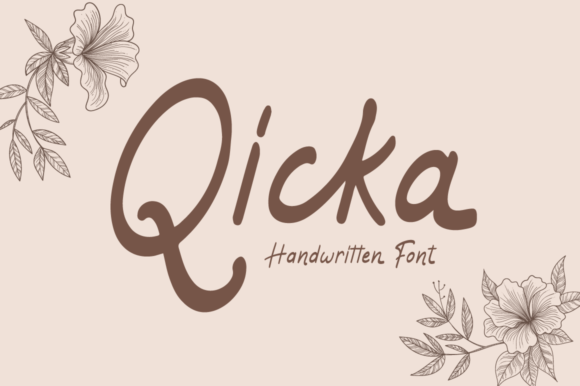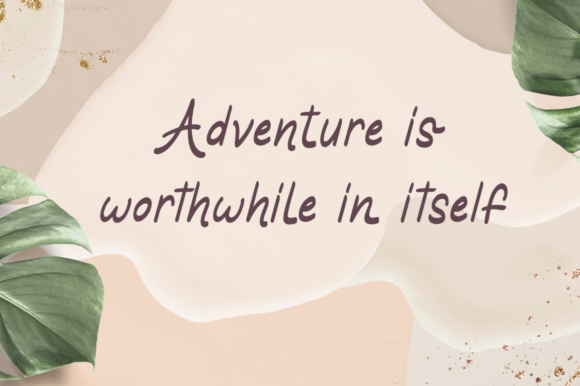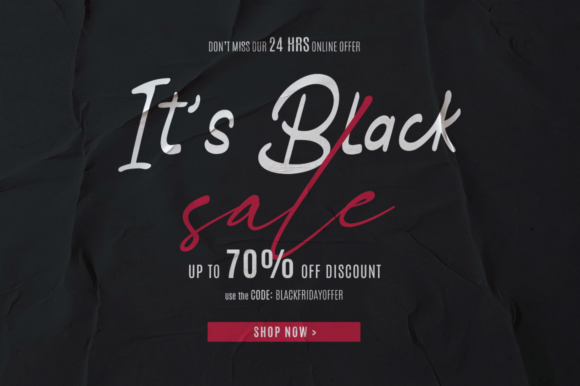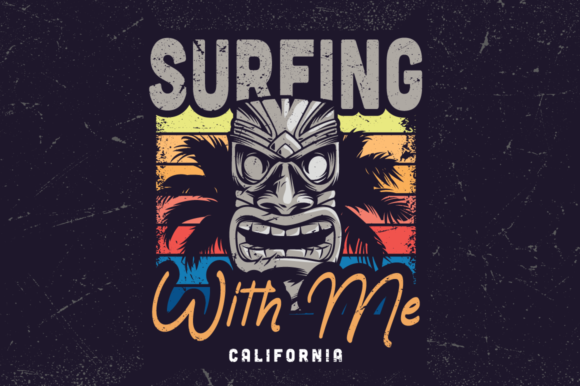
About Qicka Font
Qicka is a chic, refined script font that emanates sophistication and elegance. Its stylish alternates and ligatures make this font the perfect match for any project.